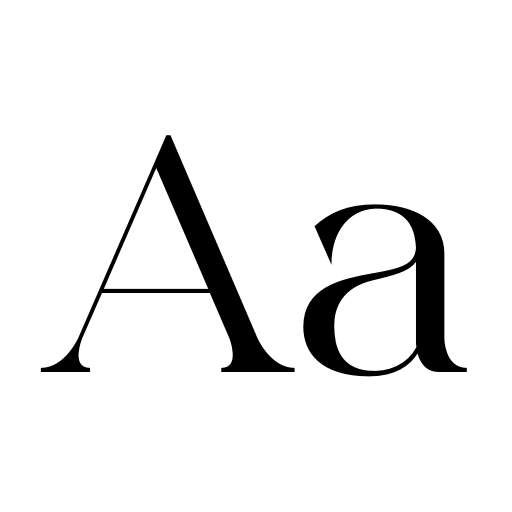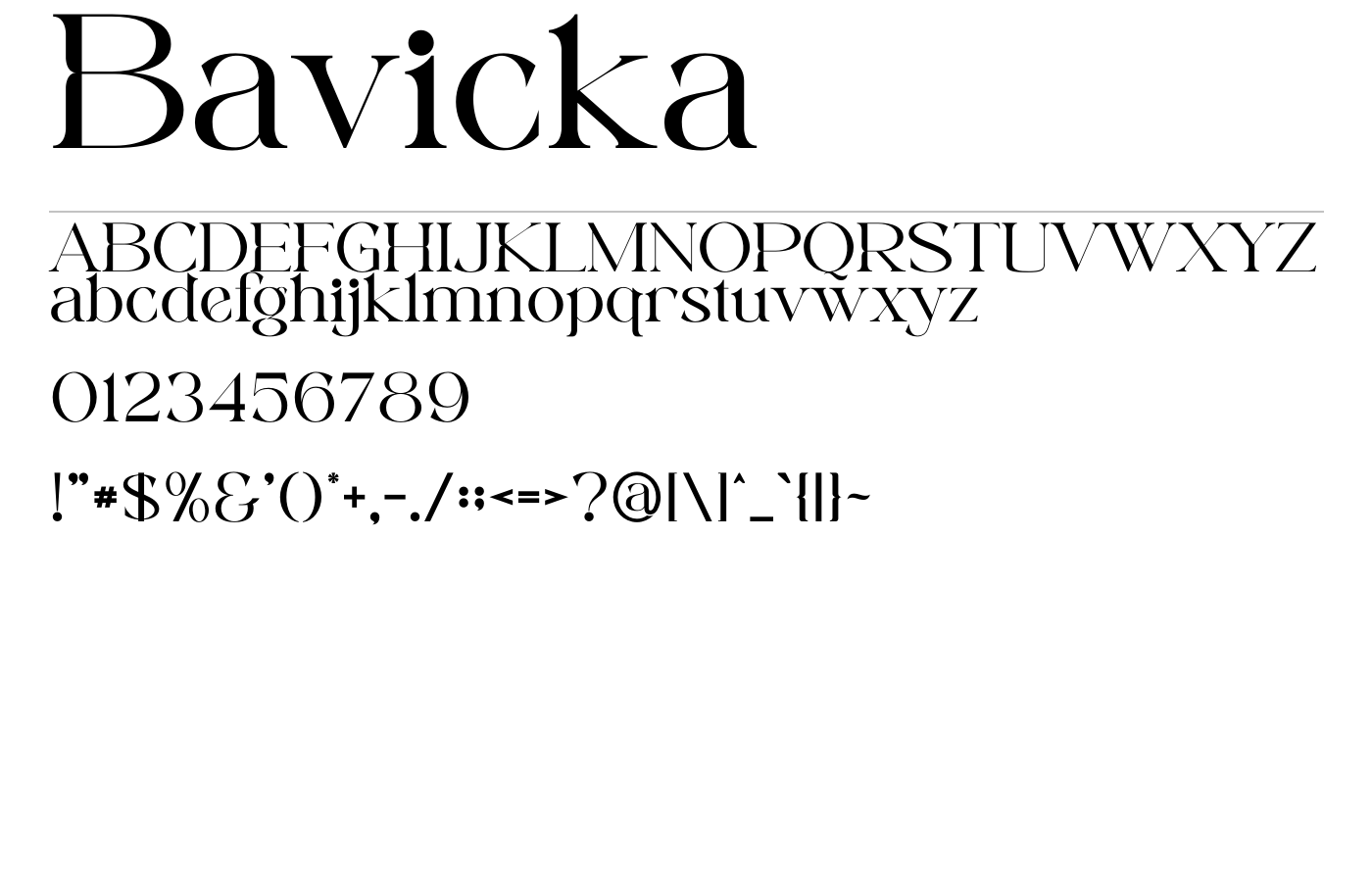
Bavicka is an elegant serif font with a refined, high-contrast design that balances classic sophistication and modern grace. Its delicate, sharp serifs and tall, slender letterforms make it ideal for luxury branding, editorial headlines, and upscale packaging where a stylish and polished impression is desired. This font shines in settings that require a touch of exclusivity and timeless beauty.
Bavicka Font
About Bavicka Font
| Font family | Bavicka Font |
| Designer | Biham Santoso |